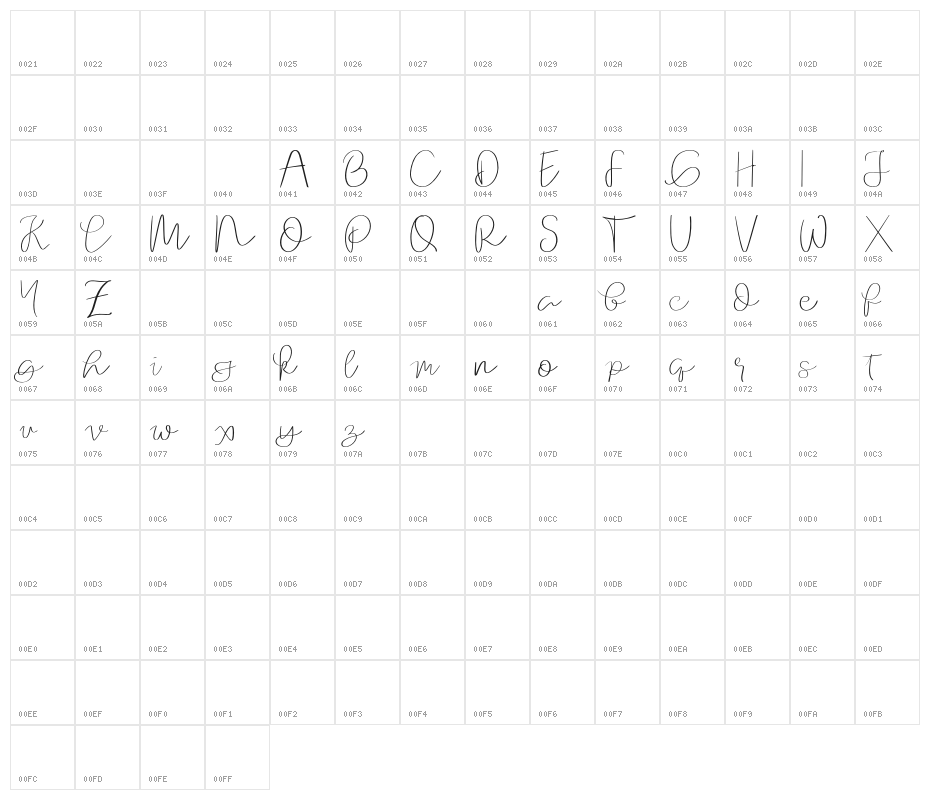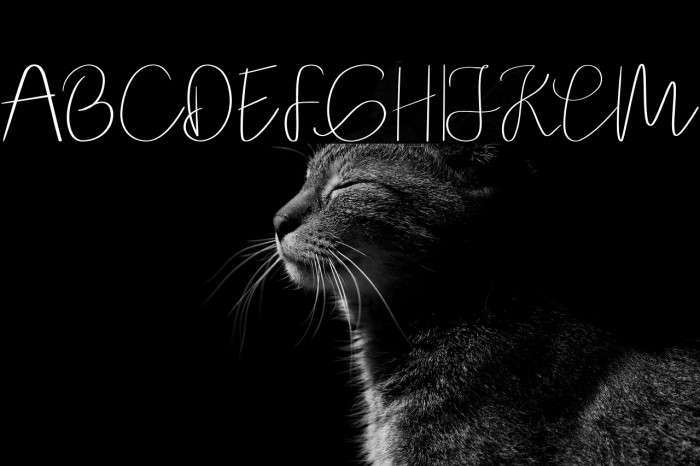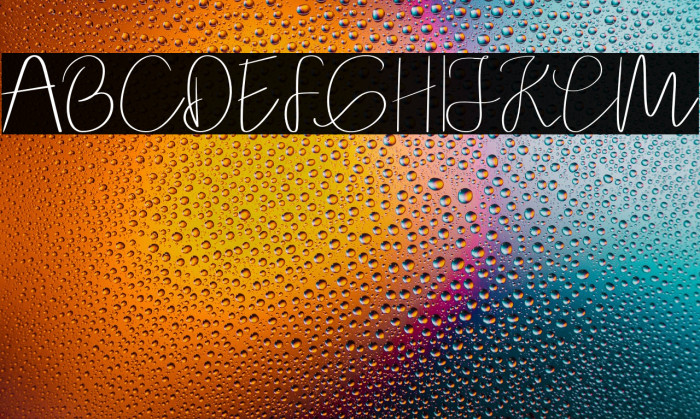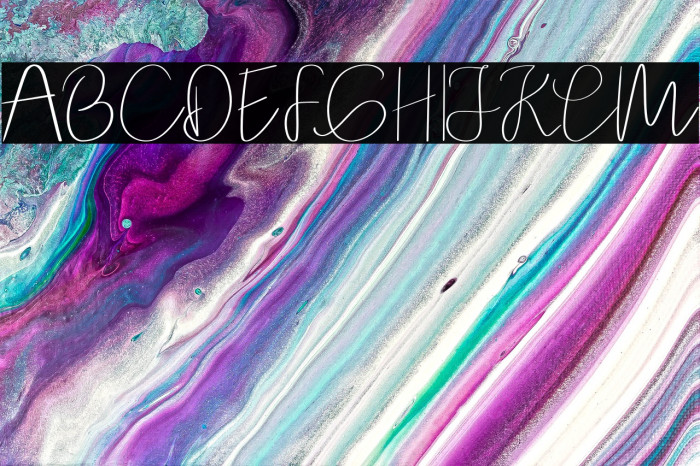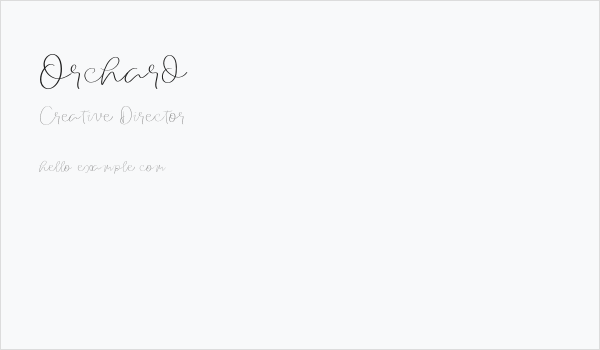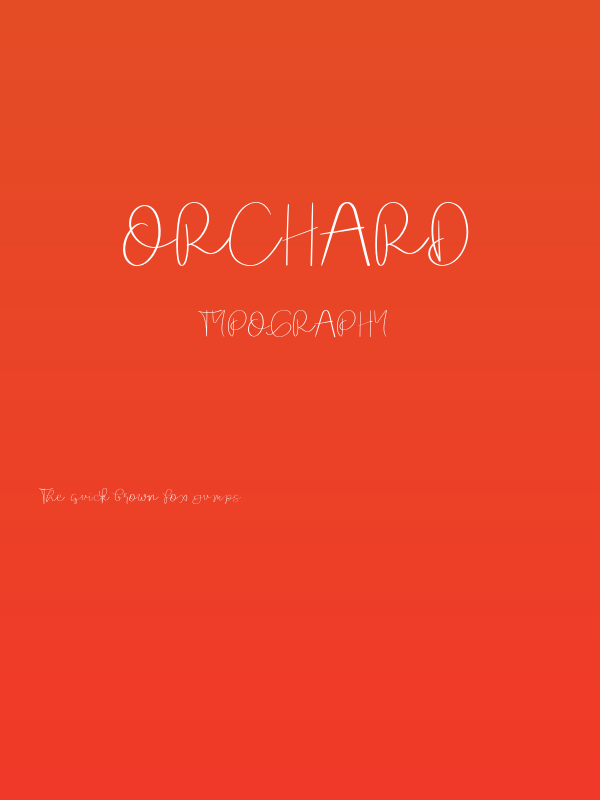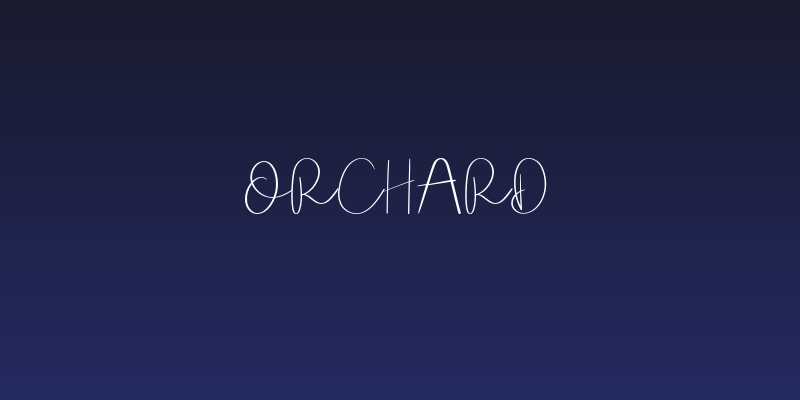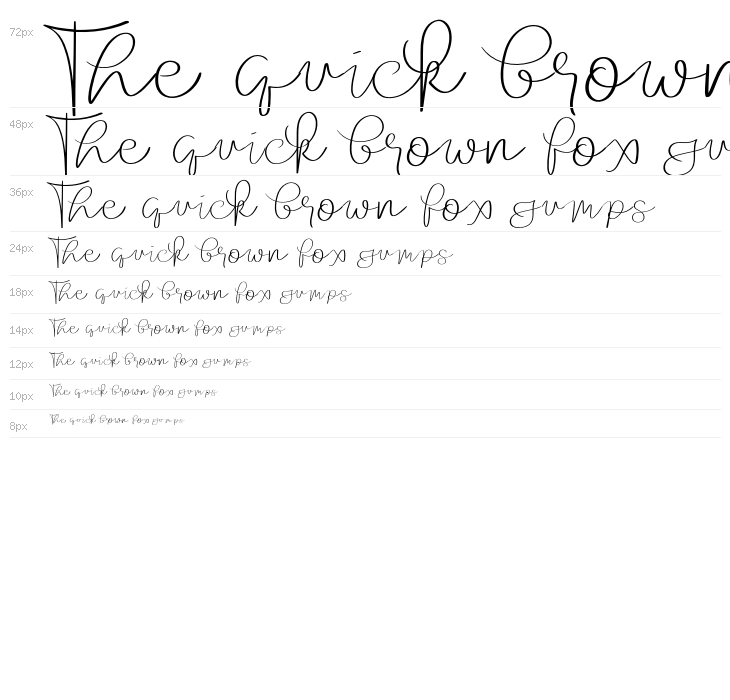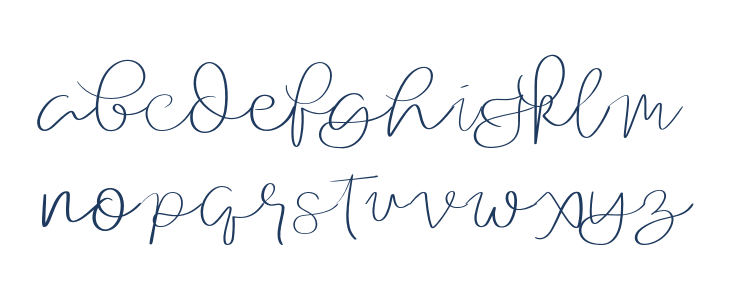
Orchard Font
Orchard Description
This font exhibits a playful and whimsical script style, characterized by its fluid, interconnected strokes and elegant loops. The uppercase letters are tall and slender, with a graceful flow that suggests movement and creativity. The lowercase letters maintain a consistent style, with some letters featuring distinctive curls and swirls that add to the font's charm. The overall design is light and airy, making it suitable for projects that require a touch of elegance and personality. The font's unique style is both modern and artistic, offering a fresh take on traditional script fonts.
| Use Case | Logos, Invitations, Artistic designs |
| Proposed Projects | Ideal for wedding invitations, greeting cards, branding projects, and artistic designs. |